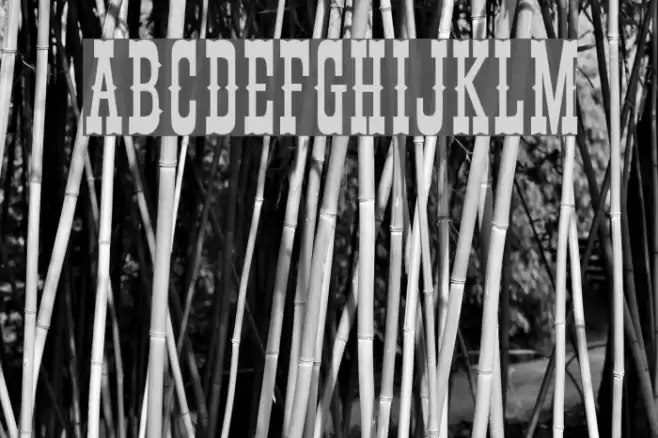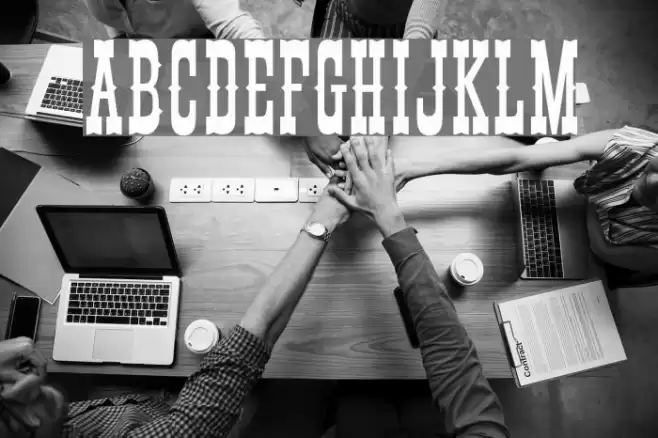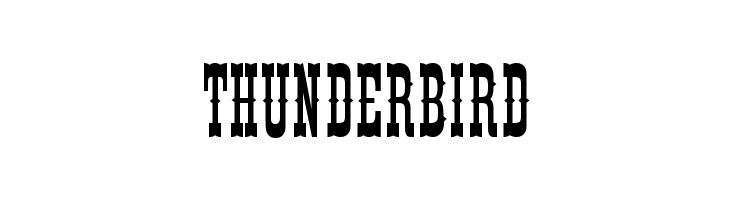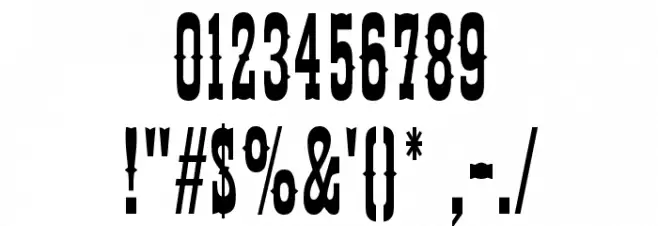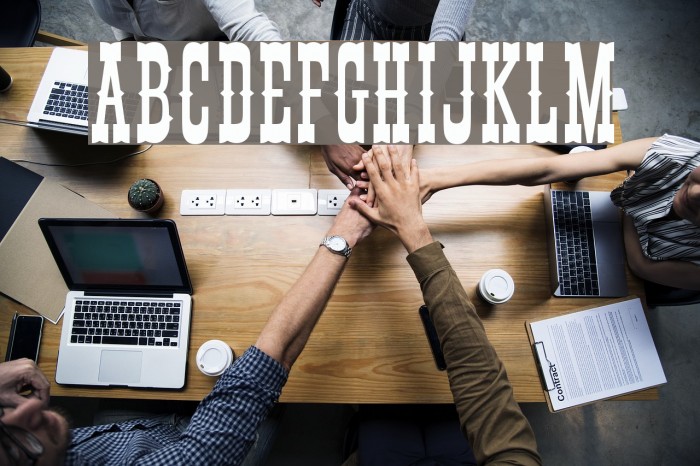
Thunderbird Font
Thunderbird Description
This font features a bold, impactful style with a strong presence. The characters are designed with a slab serif structure, giving them a robust and sturdy appearance. The serifs are thick and pronounced, contributing to the font's commanding look. The uppercase and lowercase letters maintain a consistent weight, ensuring uniformity across the text. The numbers and special characters are crafted with the same attention to detail, making them easily legible and visually cohesive. This font's design is reminiscent of vintage Western typography, often seen in old posters and signage, which adds a nostalgic and rugged charm.
A bold, slab serif font with a vintage Western style from Western fonts.
- Proposed Projects: Ideal for use in posters, signage, branding projects, and any design requiring a bold, vintage aesthetic.
- Overall Style: Vintage